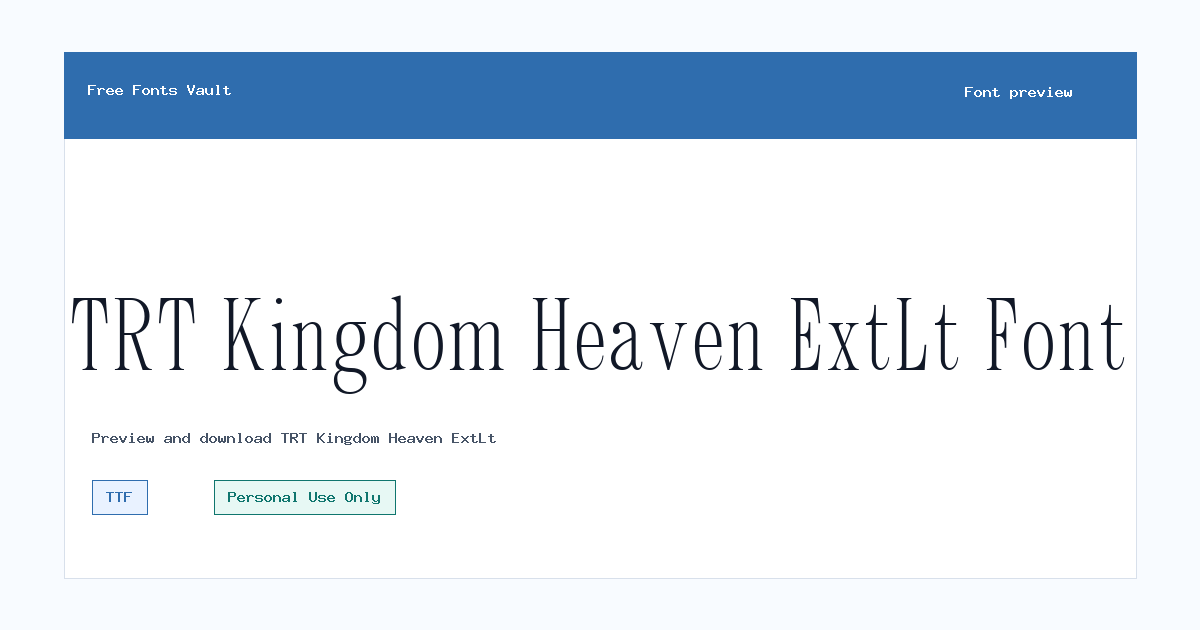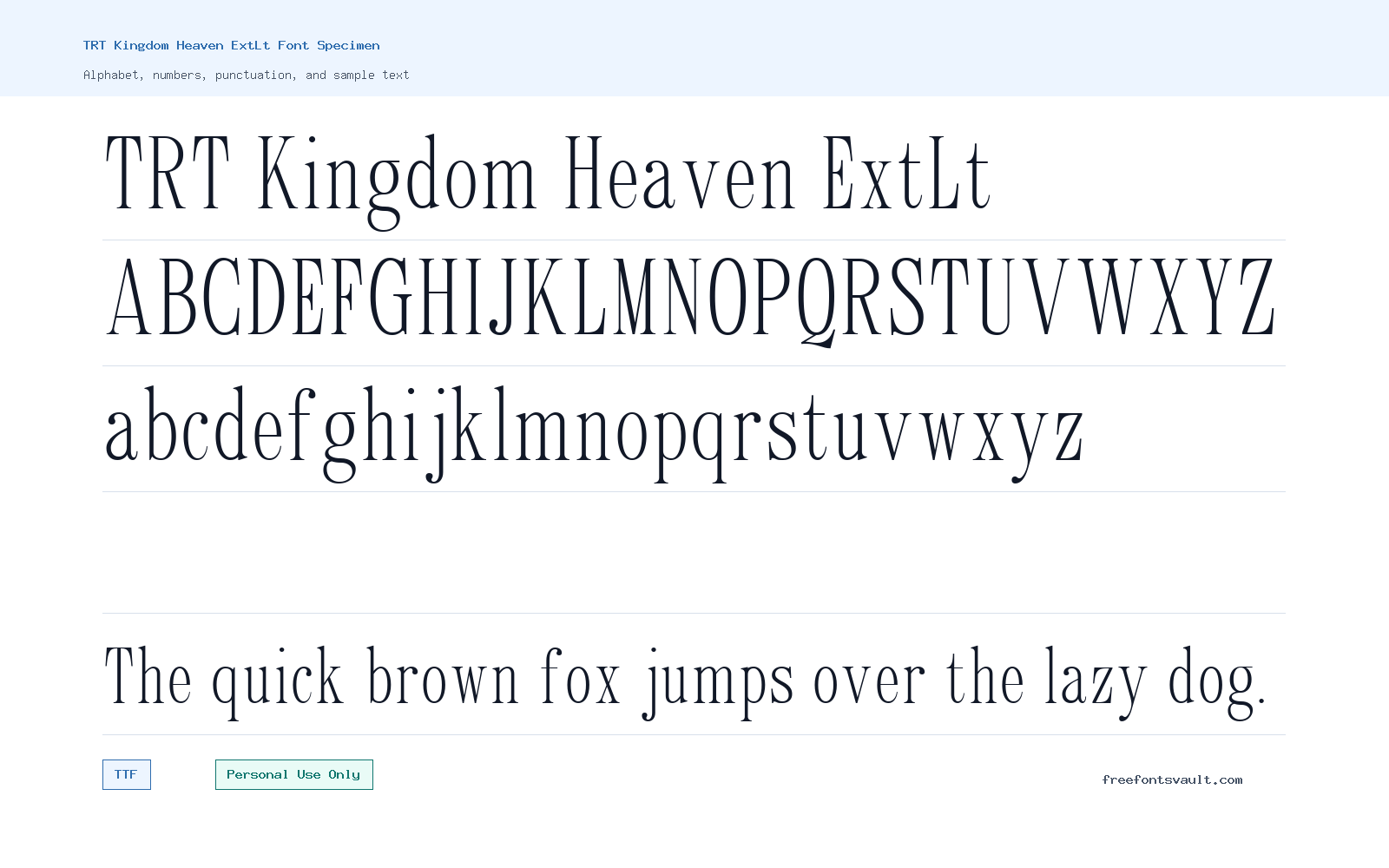
TRT Kingdom Heaven ExtLt
- Designer Achmad Akbar Afiansyah by Truetype
- Foundry Truetype
TRT Kingdom Heaven ExtLt font.
TRT Kingdom Heaven ExtLt is an extra-light serif font from the TRT Kingdom Heaven family. Its thin strokes and elegant proportions make it best suited for refined display text, especially where a quiet, high-end look is more important than heavy impact.
About TRT Kingdom Heaven ExtLt
TRT Kingdom Heaven ExtLt works as a delicate serif choice for titles, short headings, invitations, brand mockups, editorial layouts, and decorative typography. The extra-light weight gives the letters a fine, graceful appearance, so it can feel polished without looking loud. Because the strokes are slim, it is strongest at larger sizes where the details remain clear and the spacing has room to breathe.
- Extra-light serif style with a refined display feel
- Elegant headlines, invitations, and editorial title treatments
- Logo drafts, branding mockups, quotes, and short display text
For best results, use TRT Kingdom Heaven ExtLt in large sizes with generous spacing and a simple background. It pairs more safely with a clean sans serif for body text, because the thin serif strokes are not ideal for long paragraphs. Try it in all caps, title case, and italic styling to see which version keeps the best balance for your layout.
What kind of font is TRT Kingdom Heaven ExtLt?
It is an extra-light serif style from the TRT Kingdom Heaven family. The thin strokes make it better for display typography than for long body text.
Where should I use this font?
Use it for short, elegant text such as headings, invitations, editorial titles, logo concepts, quotes, and presentation graphics. Avoid relying on it for small paragraphs or dense interface text.